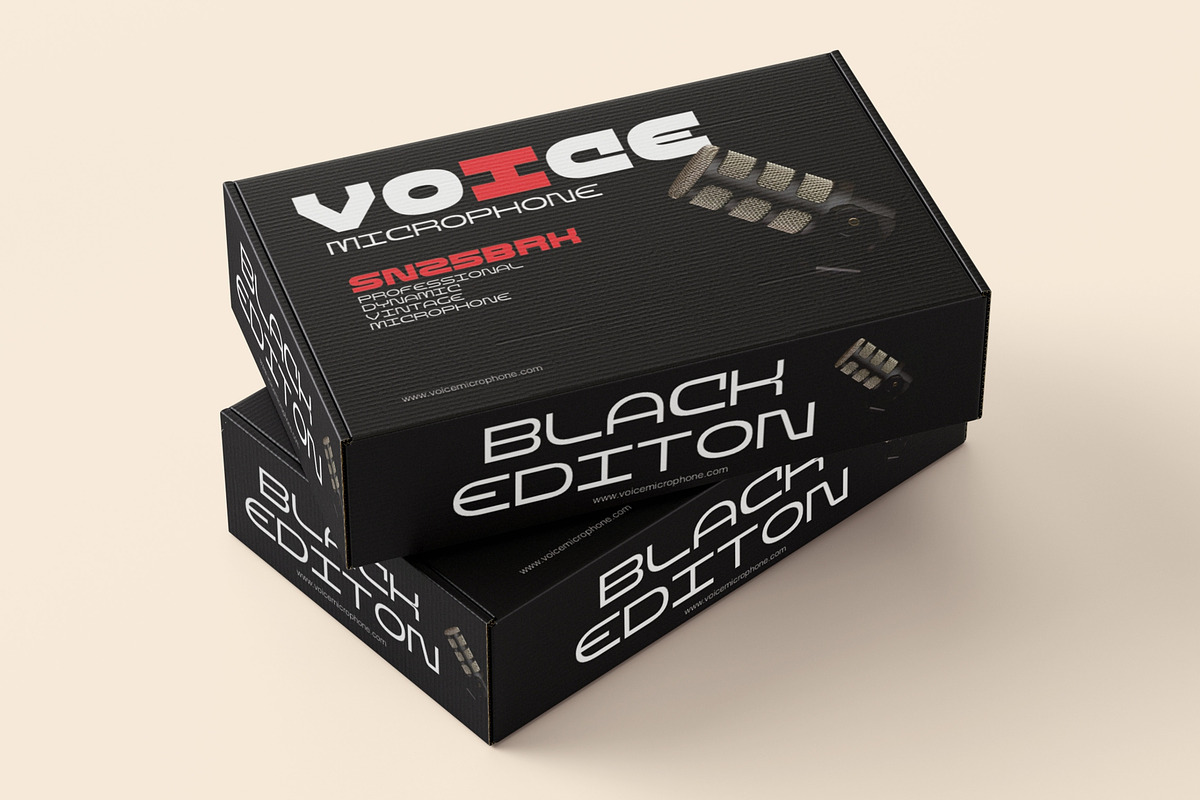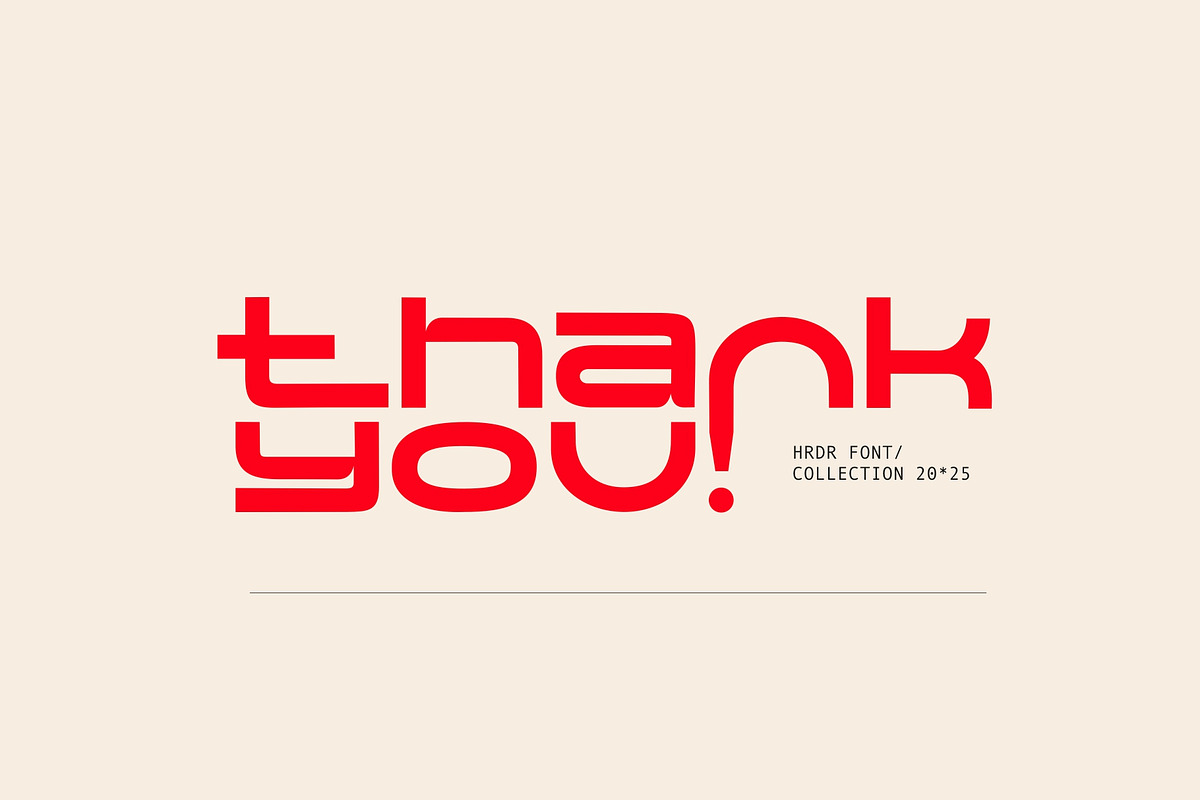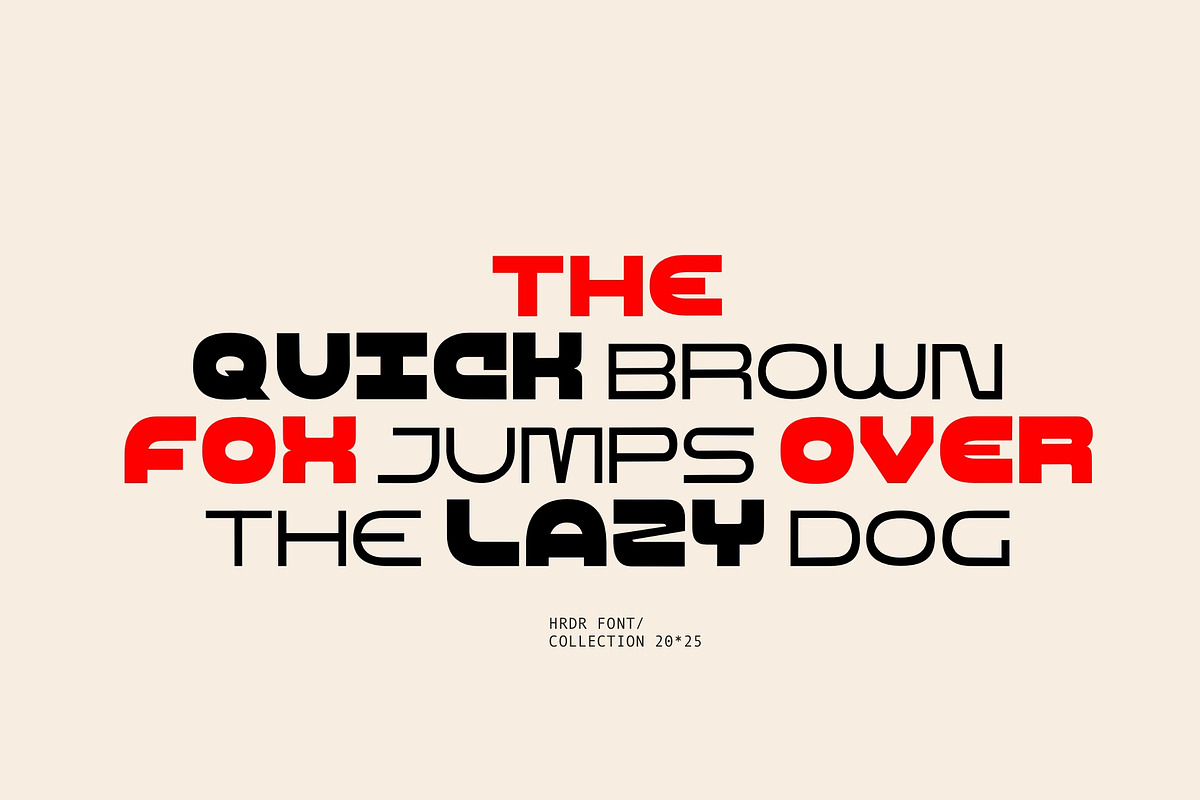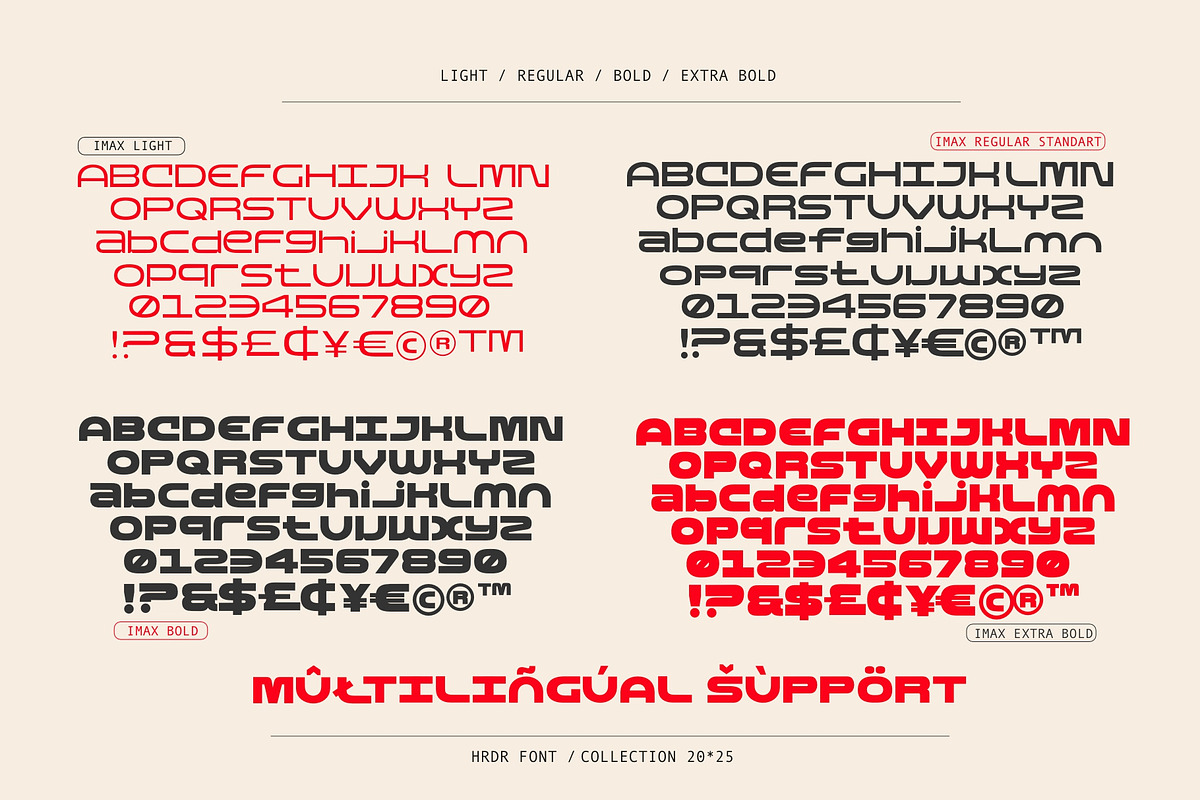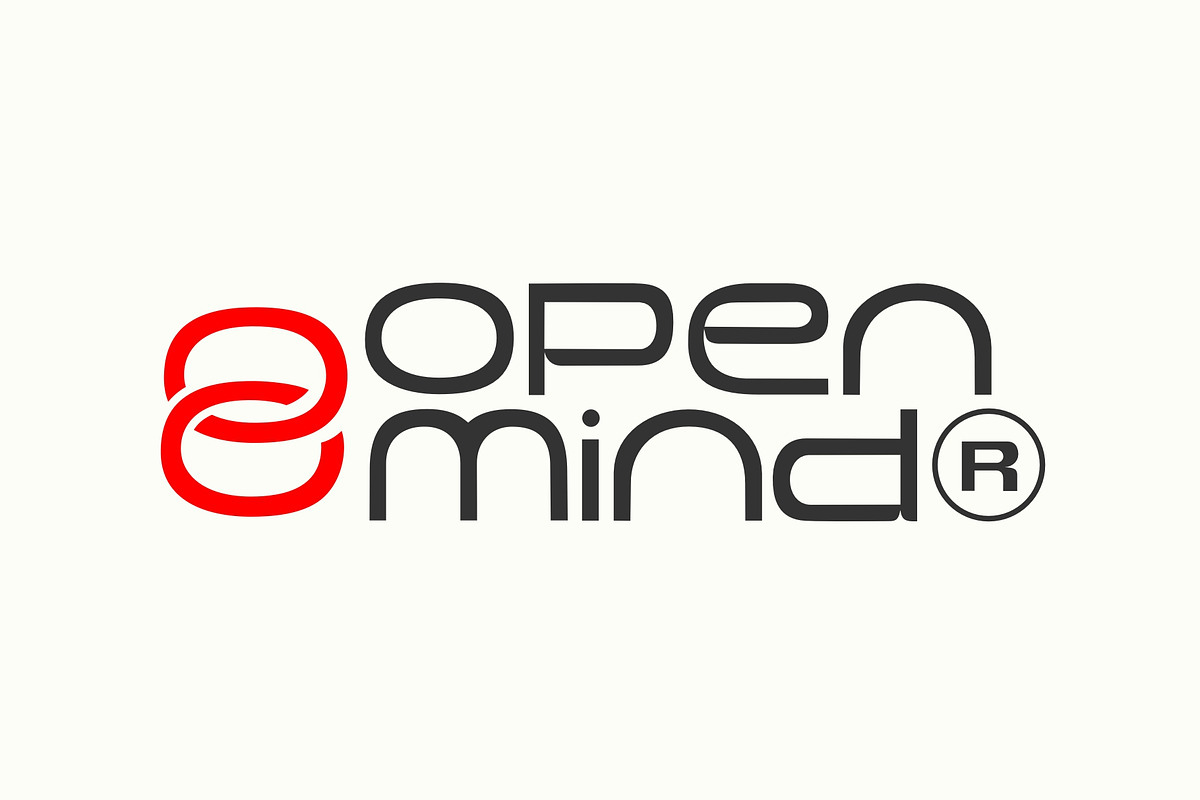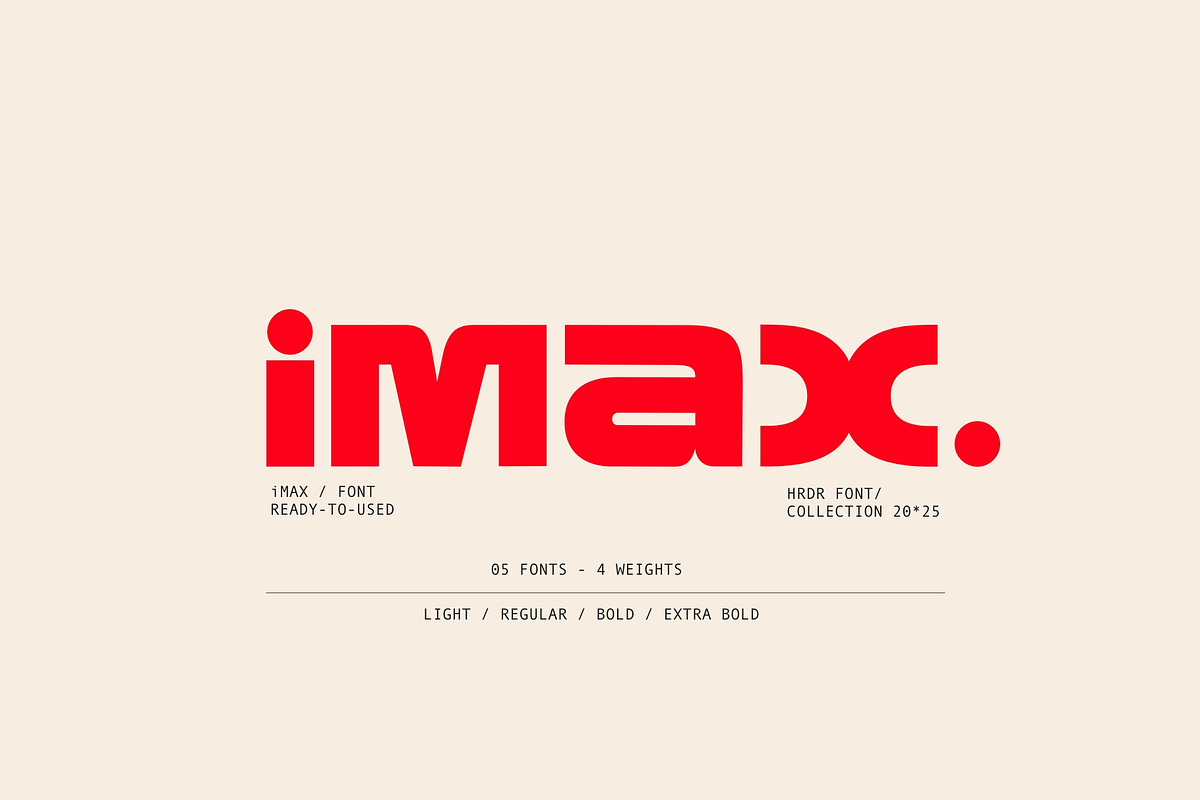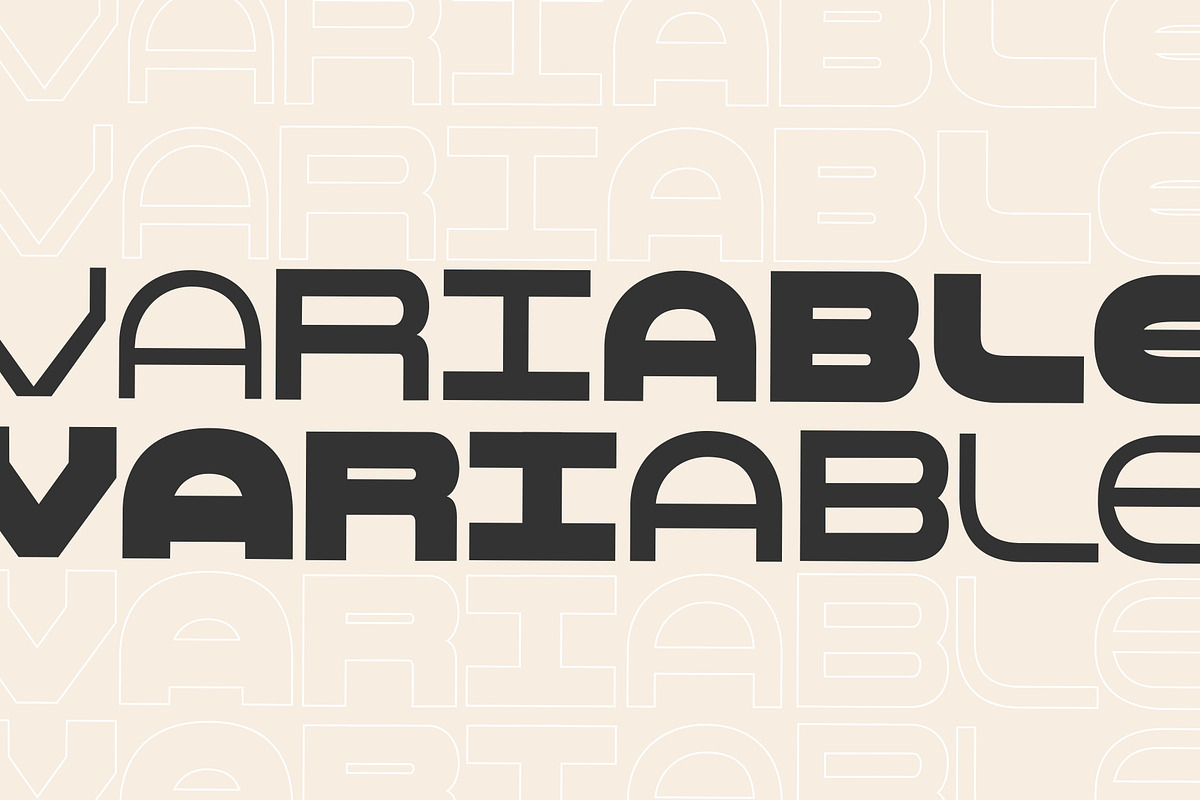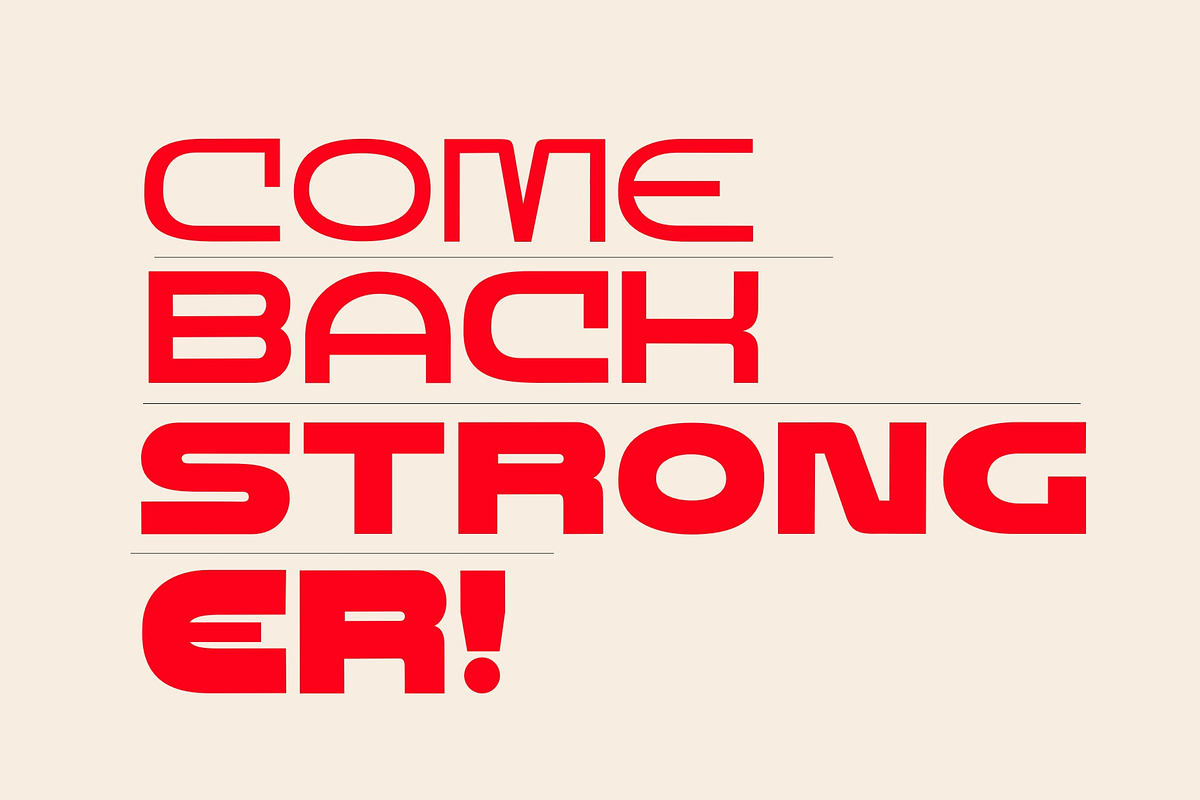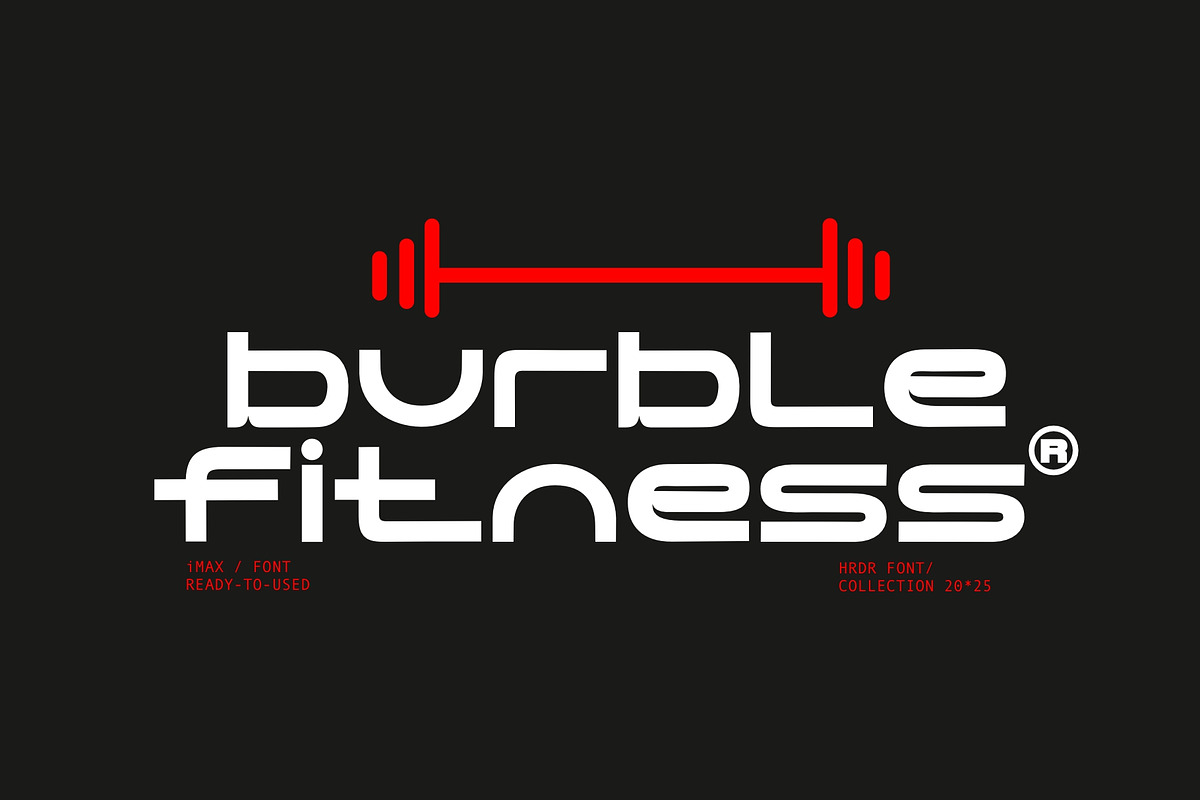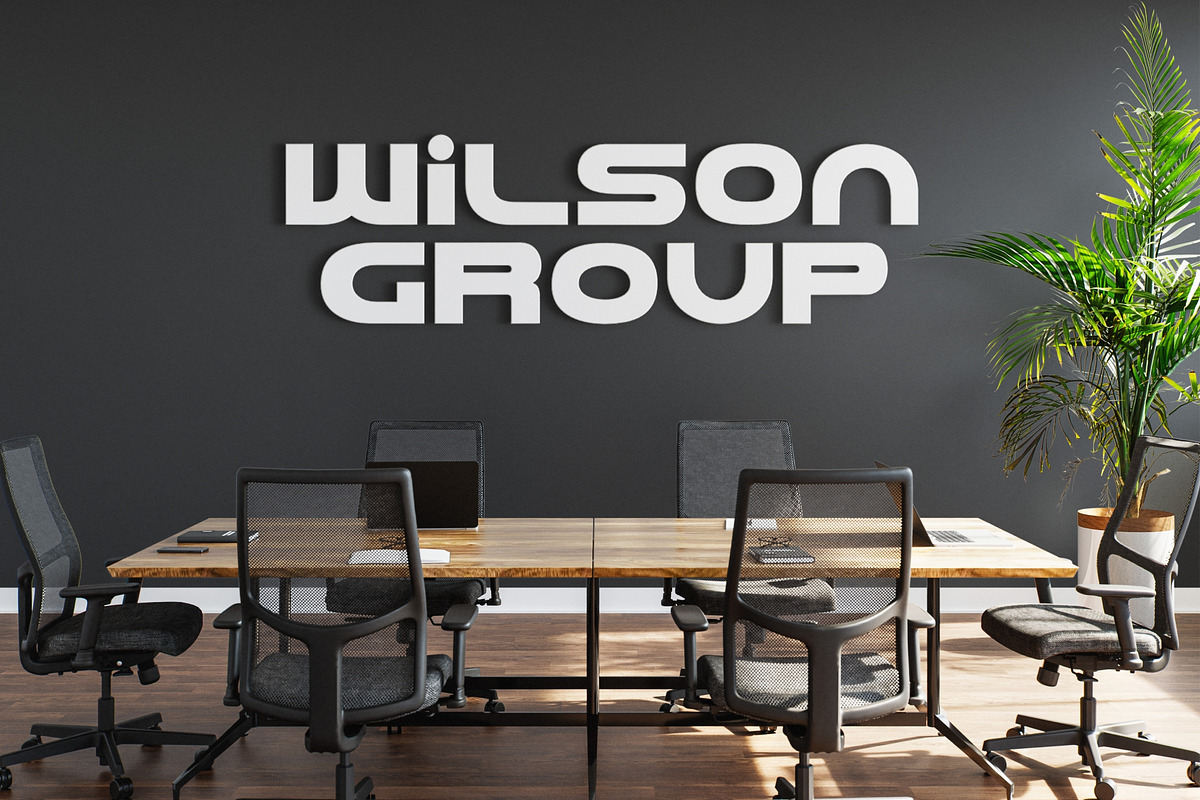
Imax
Imax is a modern type style that is perfect for logos, branding , film, apparel, motion graphic, logotype, signage, flyer, packaging and more. It has been designed as a variable font, there are five widths in the font family so this will give you just as much access to the creativity this font can provide.
This font family brings a strong feel yet elegant look that you can use for many purposes.
- numeric & Multilingual support
- Standart Ligature